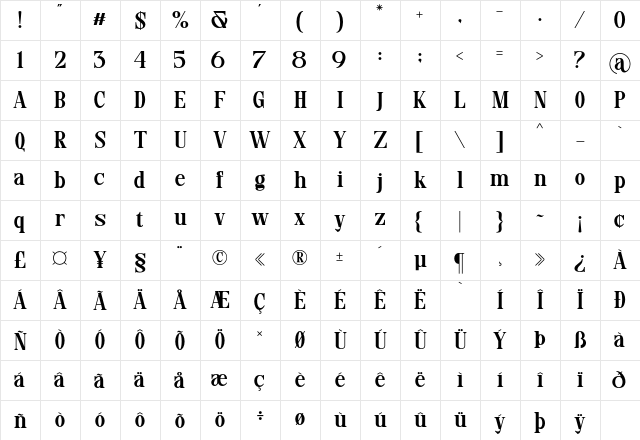
Veraday Display Serif Regular Free Font
Veraday Display Serif Regular
Foundry: Ferdiansyah_Dzulka Elfira_Veraday.std
Designer: Ferdiansyah_Dzulka Elfira_Veraday.std
Design Context for Veraday Display Serif
Veraday Display Serif is built around its visual character rather than neutral utility - its distinctive forms are designed to make an impression at display sizes.
Font Pairing: Pair with a clean neutral sans-serif for body copy to let Veraday Display Serif's character lead without overwhelming the composition.
Pro Tip: Use Veraday Display Serif exclusively at display sizes - it was designed to be seen, not read at length. Let a neutral companion handle body copy.
Who designed the Veraday Display Serif Regular font?